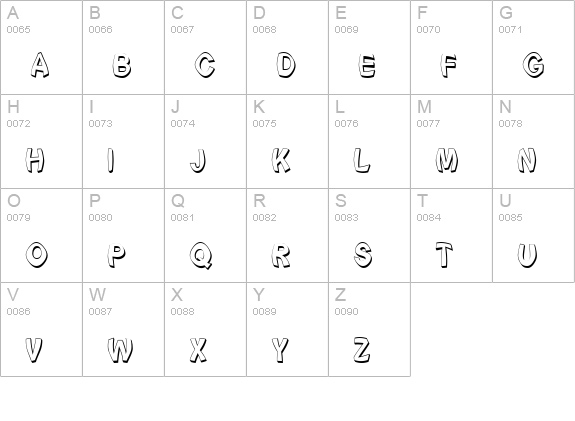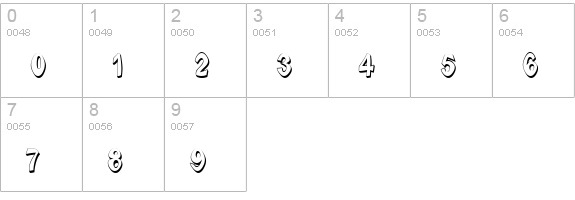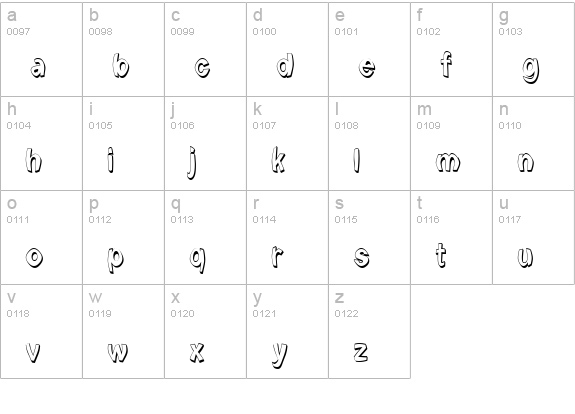
Introducing the font formerly known as FONT font - a versatile and modern typeface that is sure to make a statement in any design project. This beautifully crafted font features sleek lines, elegant curves, and a timeless appeal that will elevate your creations to the next level. What sets this font apart is not only its stunning design but also the fact that it is completely free to use. That's right, this premium quality font is available for download at FontsMarket.com at no cost, making it accessible to everyone looking to add a touch of sophistication to their work without breaking the bank. Whether you're designing a logo, creating a flyer, or working on a branding project, the font formerly known as FONT font has got you covered. With its wide range of weights and styles, you'll have all the tools you need to bring your vision to life. Download this font today and see for yourself why it's a must-have for designers everywhere.